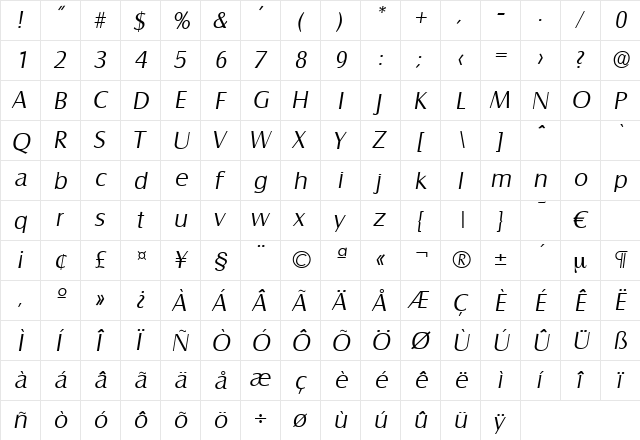
Salzburg-LightIta Regular
Design Context for Salzburg-LightIta Typeface
Salzburg-LightIta is a composed and adaptable typeface that performs quietly and consistently across a wide range of design contexts. The delicate stroke weight brings airiness and refinement to layouts.